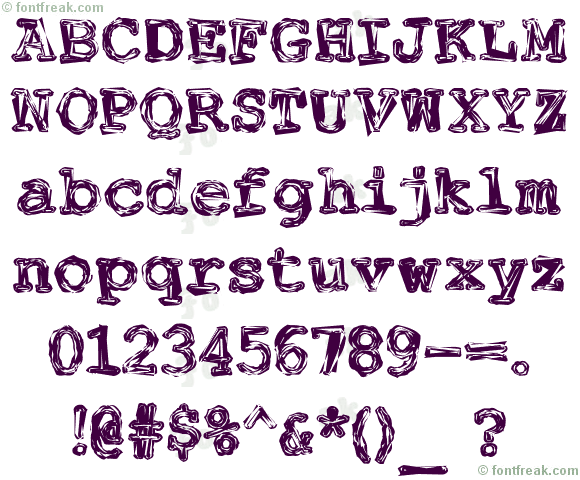
FuckinGwenhwyfar
About FuckinGwenhwyfar
The FuckinGwenhwyfar font, designed by Peter Wiegel, is a unique display typeface that captures attention with its whimsical and playful character. This decorative font showcases a distinctive hand-drawn aesthetic, making it perfect for projects that require a touch of personality and flair. With its irregular stroke weight and contrasting line thickness, the font exudes a sense of spontaneity and creativity. The spacing is thoughtfully designed to ensure readability while maintaining a lively appearance, making it suitable for various design applications.
This font excels in specific use cases, including wedding invitations where a fun and informal vibe is desired, movie posters that need a bold statement, and restaurant menus aiming for an inviting atmosphere. It can also be a great choice for branding materials that seek to convey a light-hearted and casual tone. Small business owners looking to stand out will find this font to be an excellent asset in their marketing materials and social media graphics.
What sets the FuckinGwenhwyfar font apart is its unique ability to balance playfulness with professionalism, ensuring that it can be used in both casual and serious contexts. Its distinctive style encourages creativity and helps to create memorable designs that resonate with audiences. For anyone looking to add a unique flair to their projects, the FuckinGwenhwyfar font free download is an excellent choice.